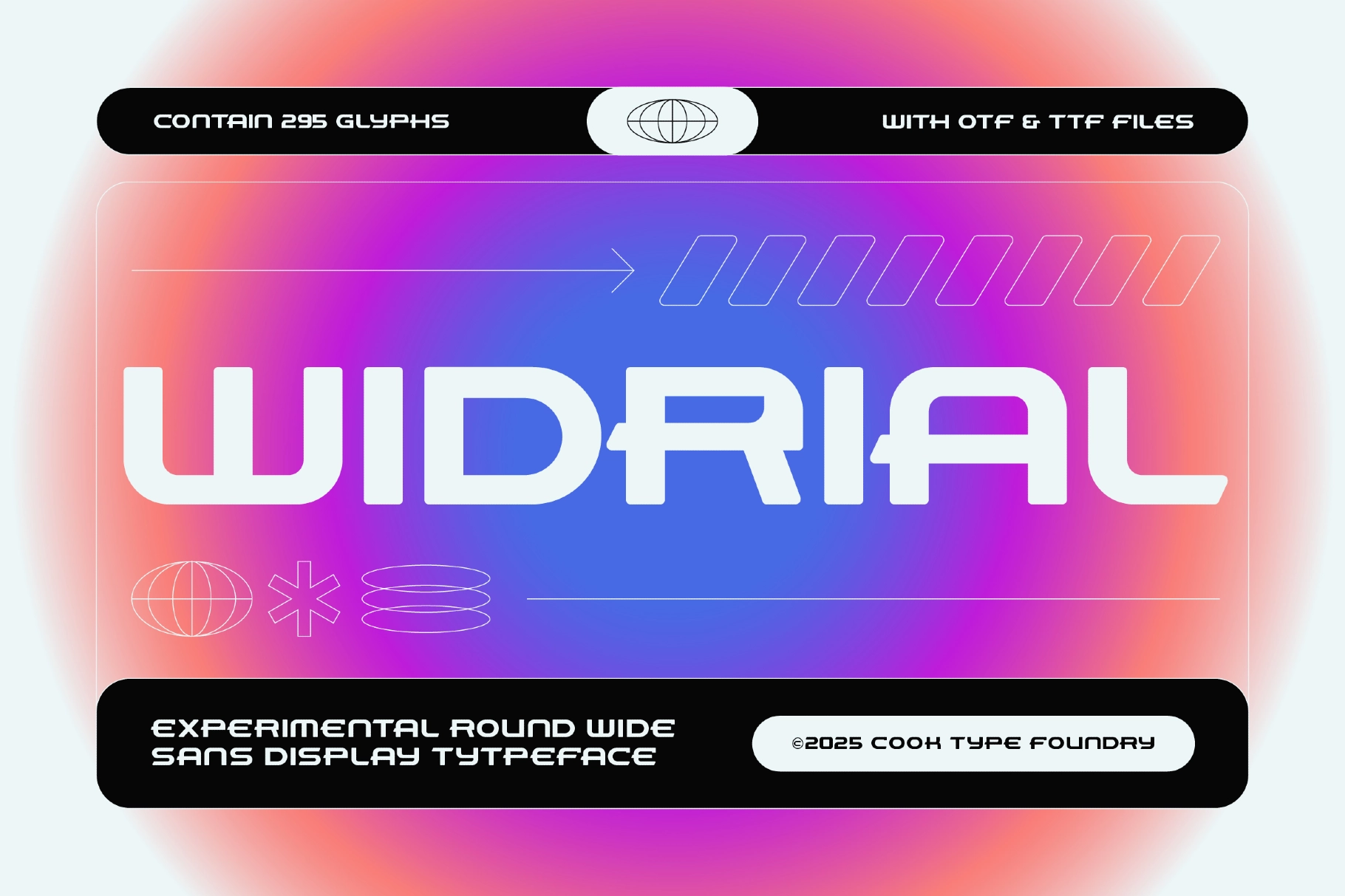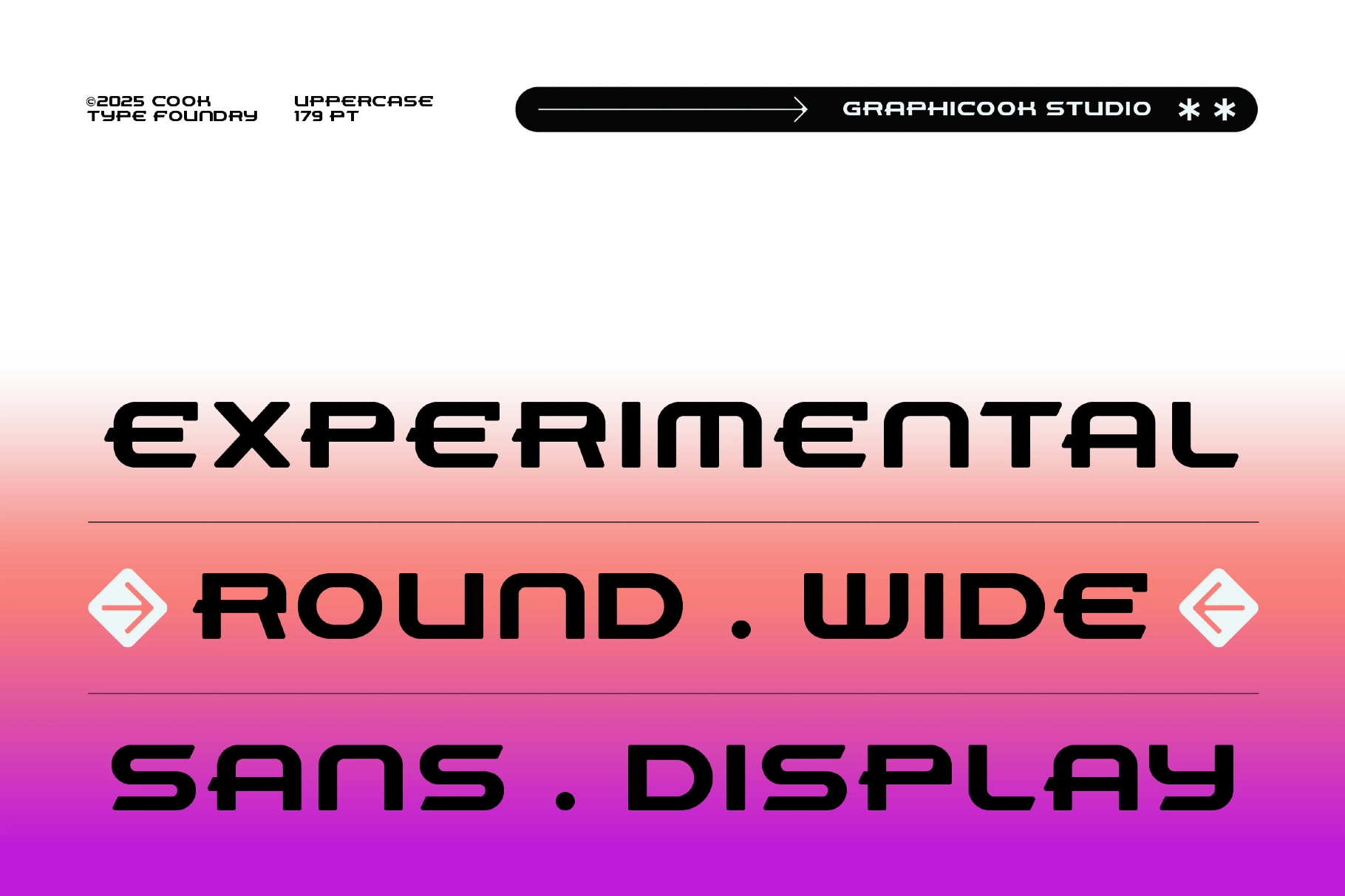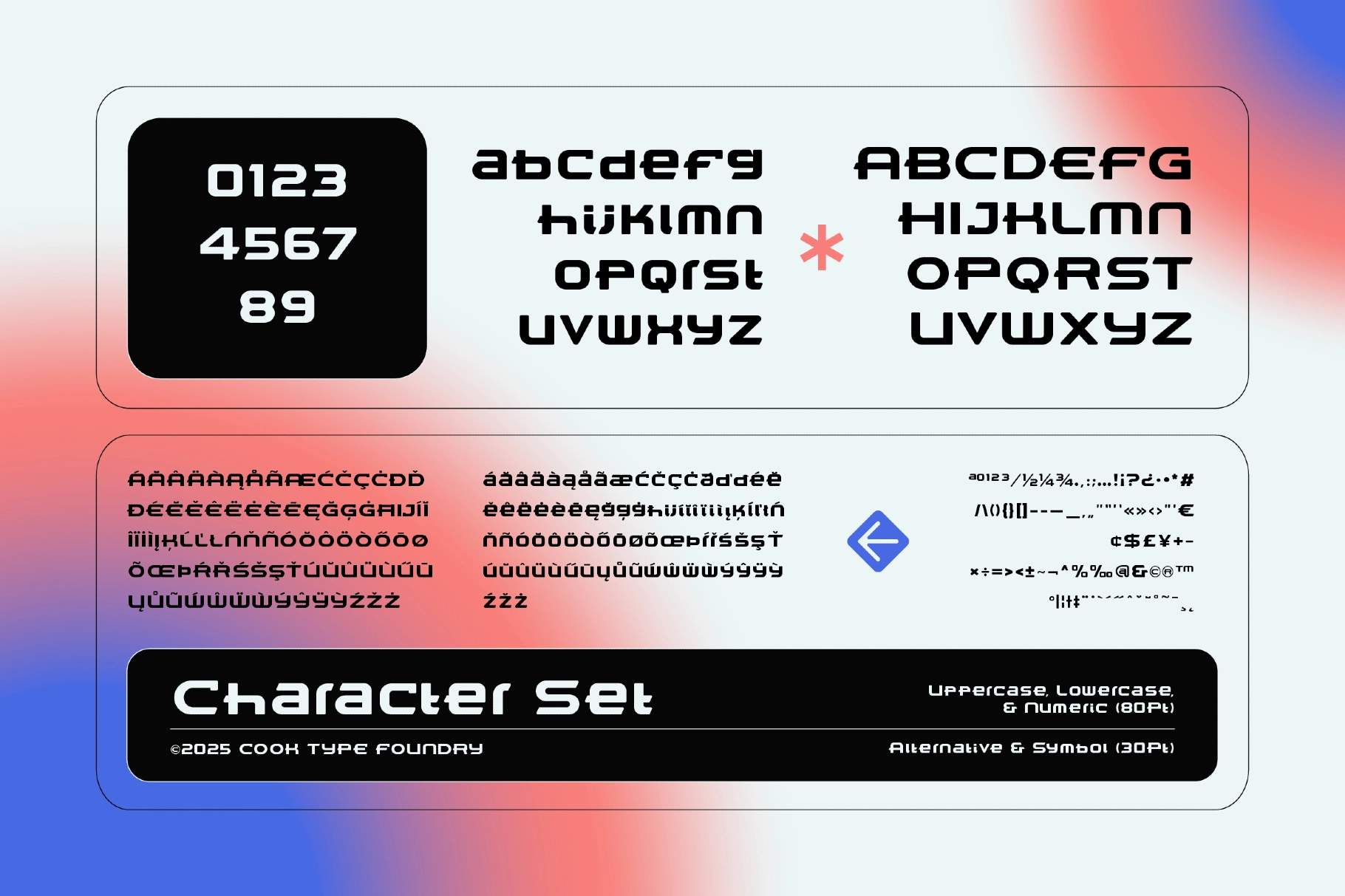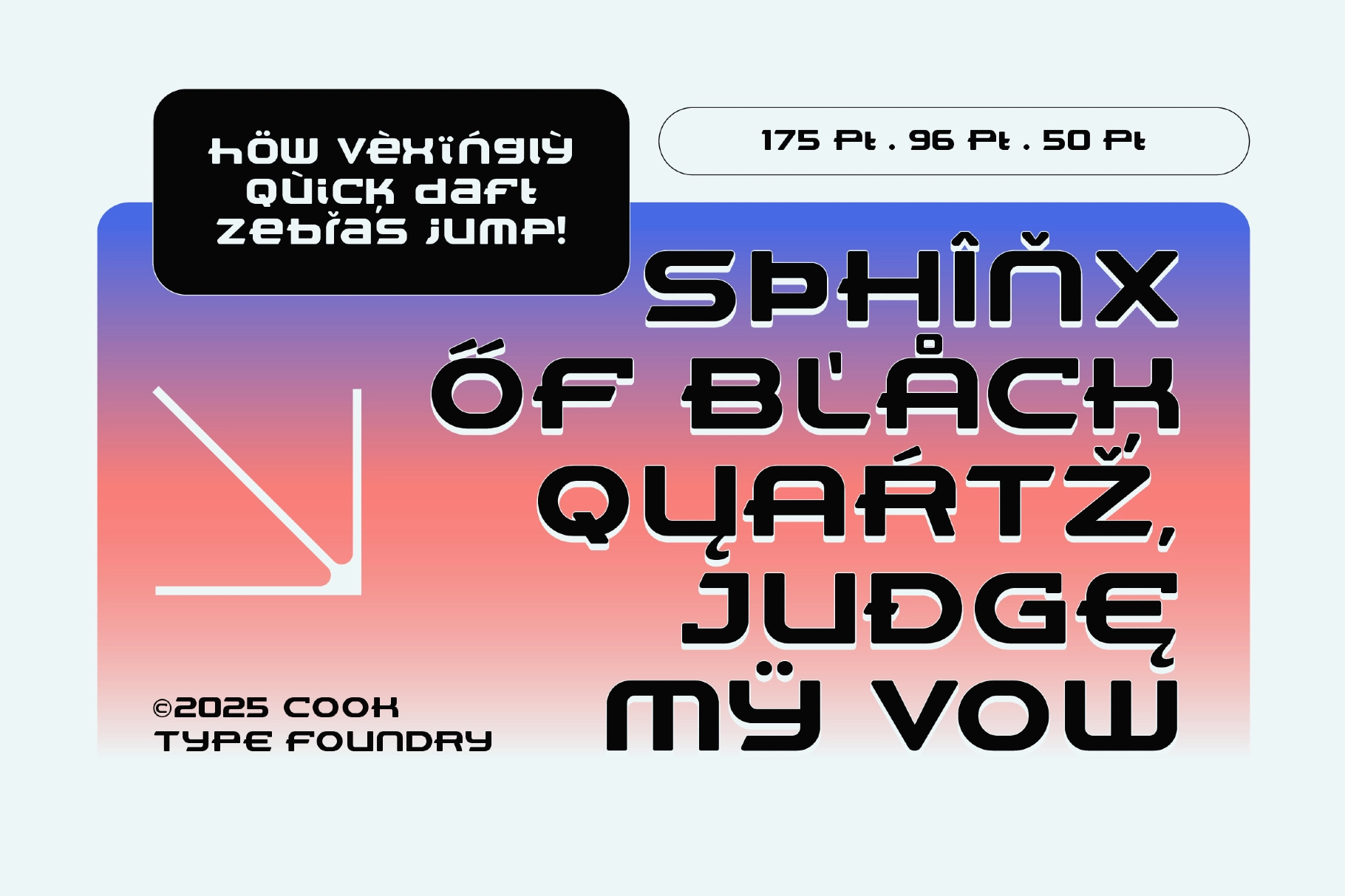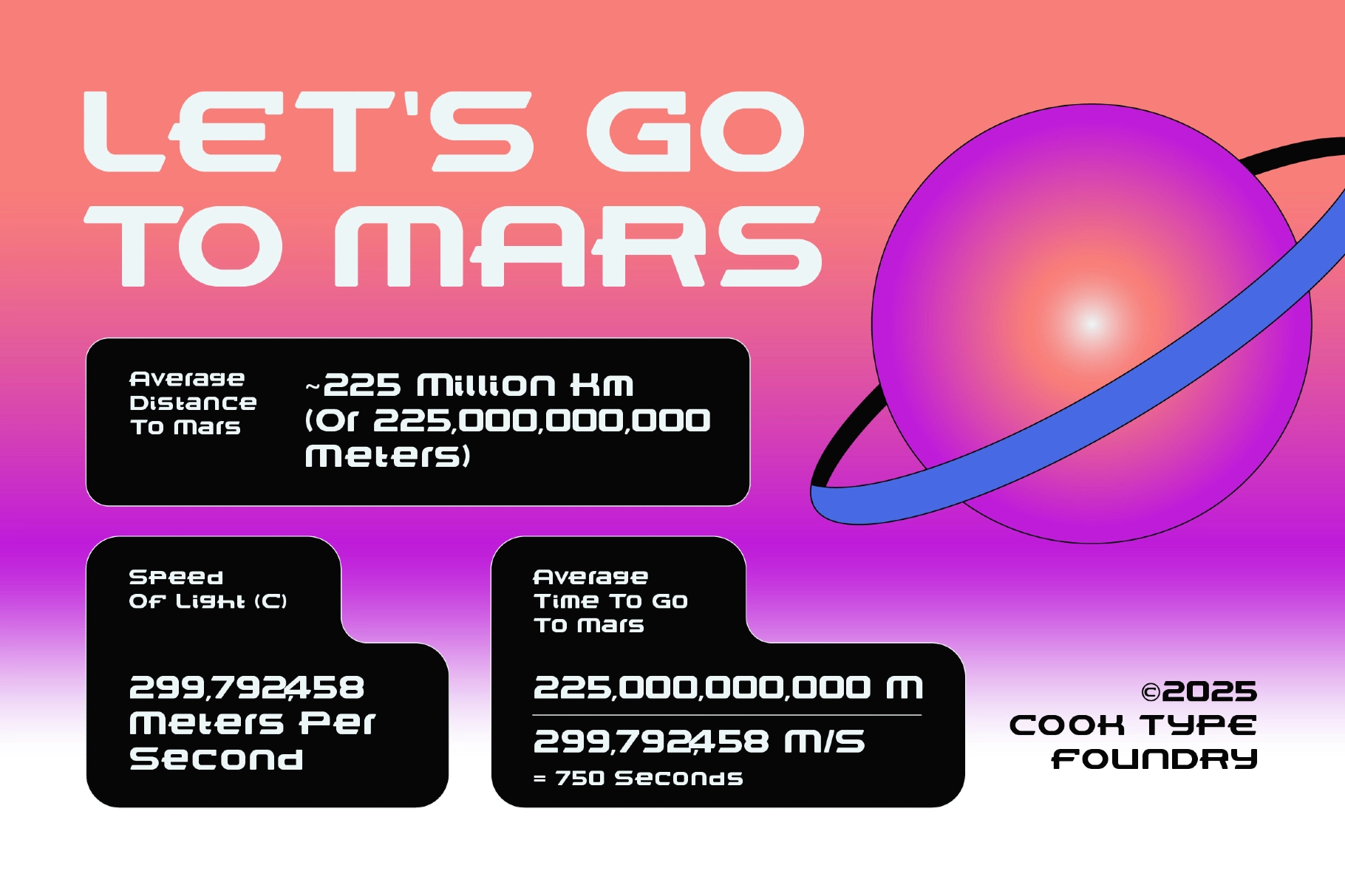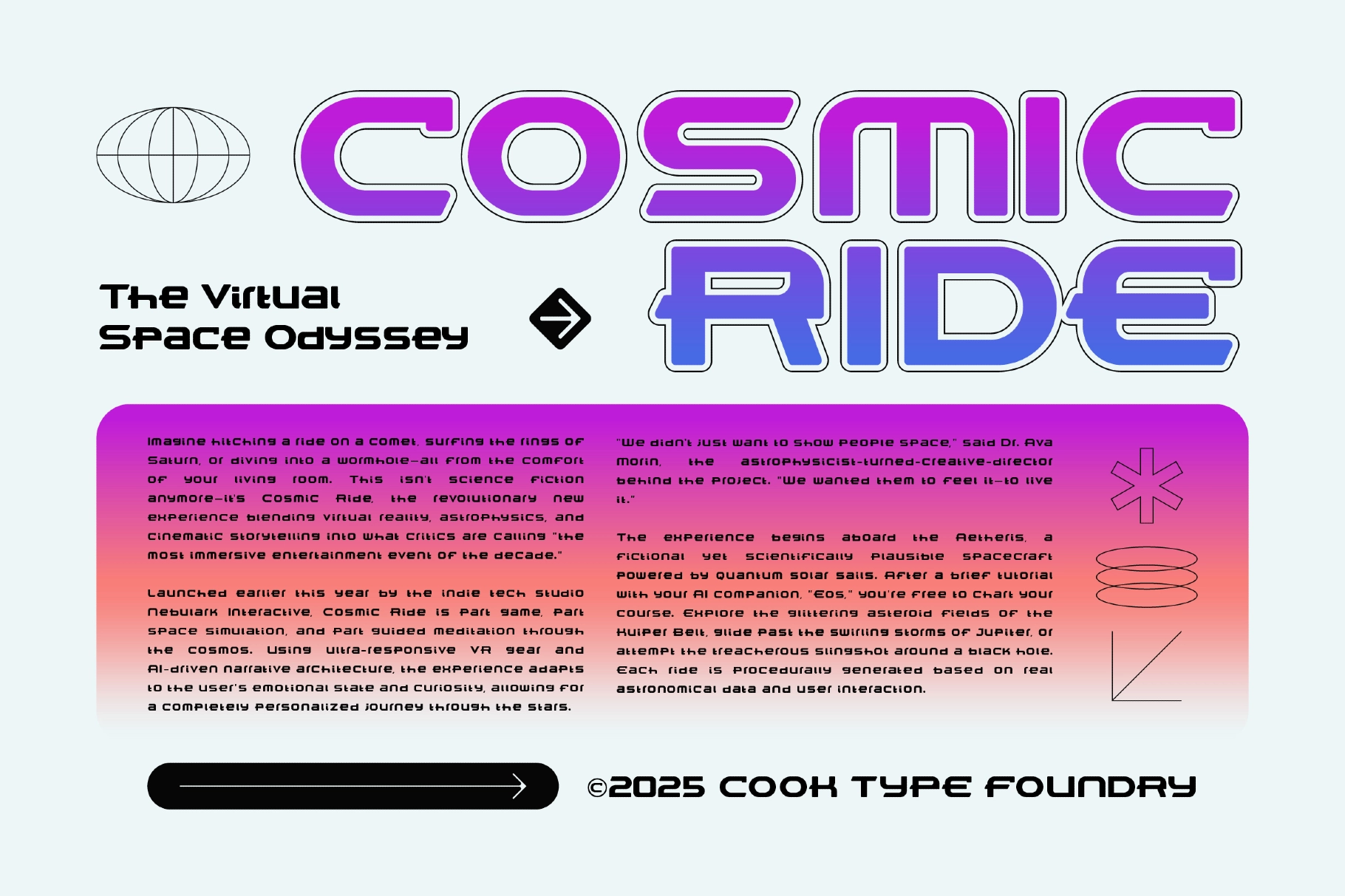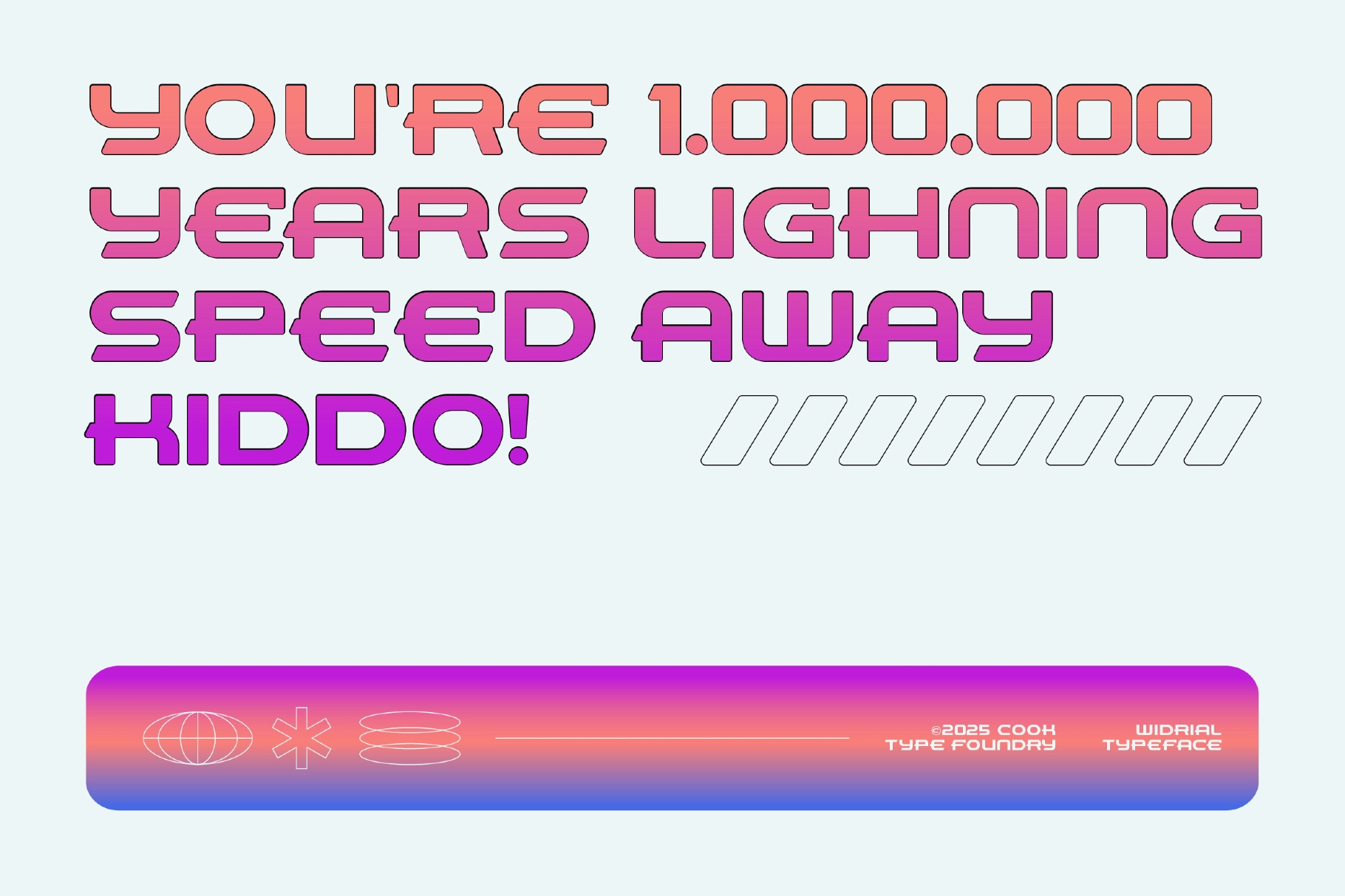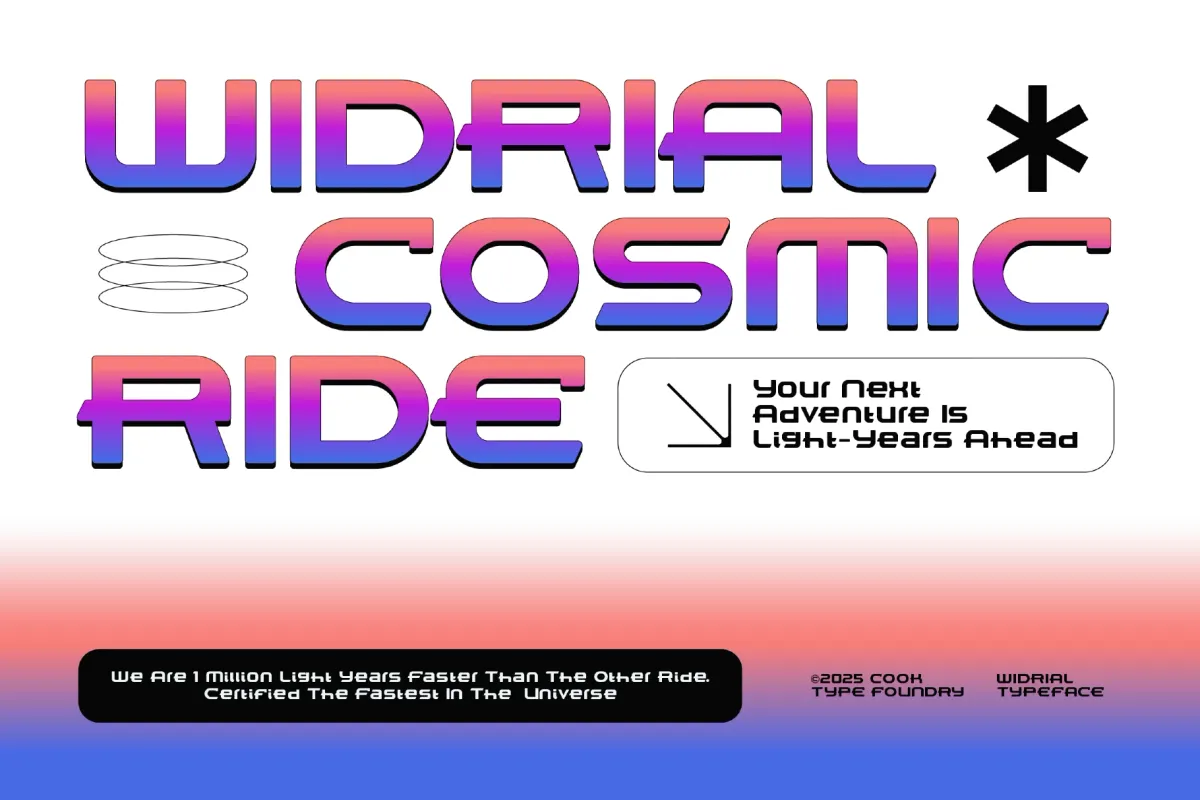
Widrial Font
Widrial
Widrial is a sans-serif font with wide letterforms and a distinctive character , evoking a high-tech, futuristic feel. Great for modern, energetic, and technology-focused designs.